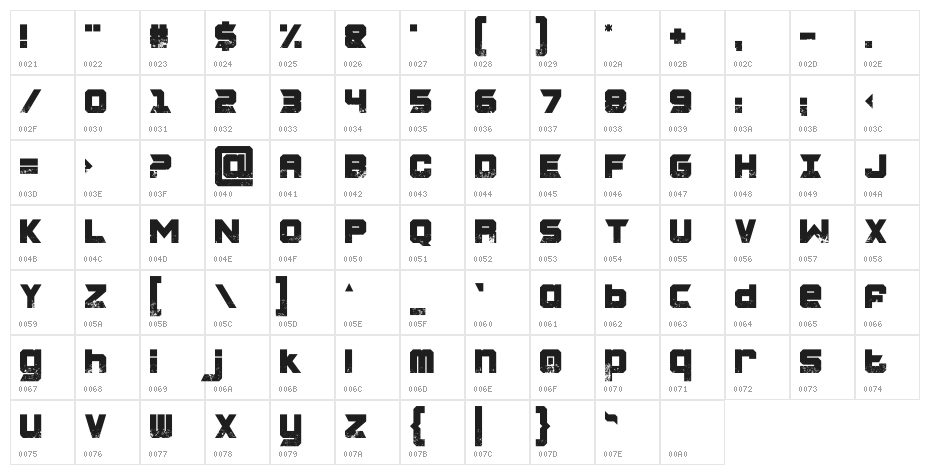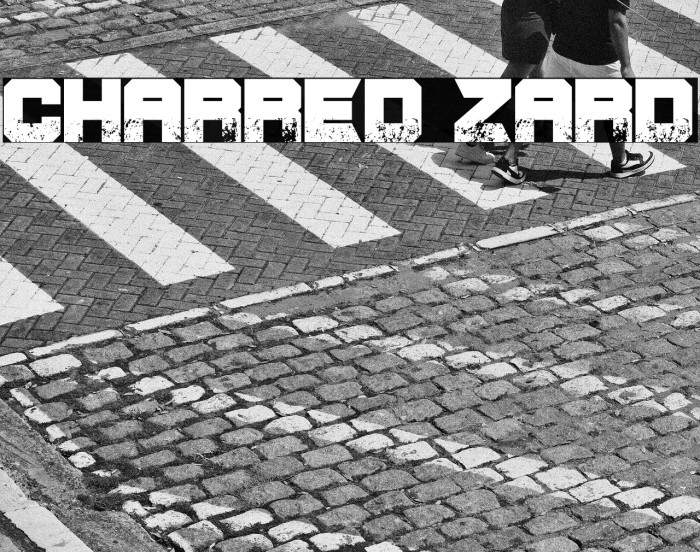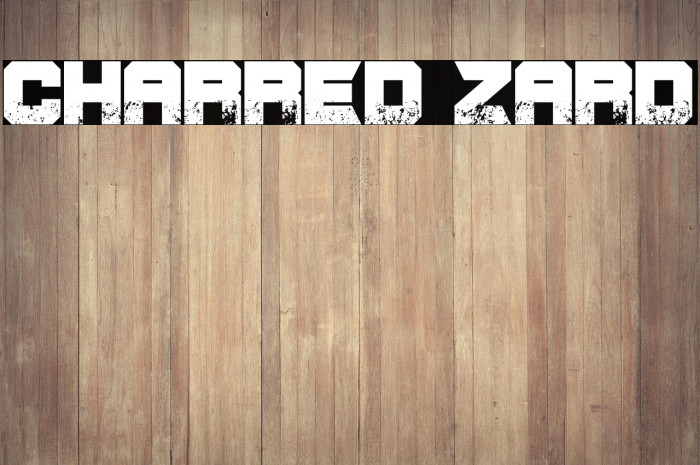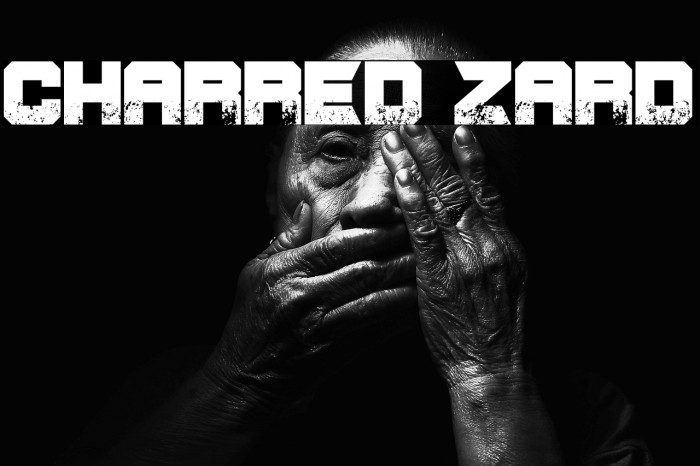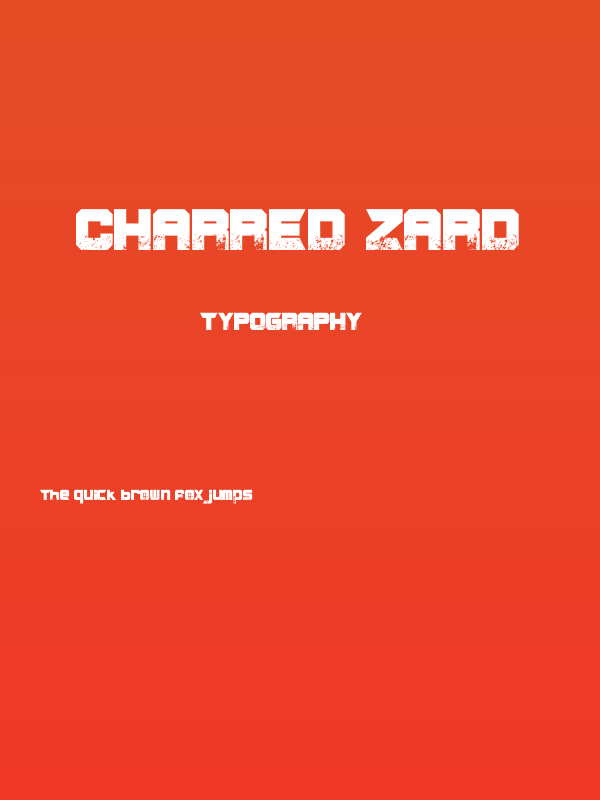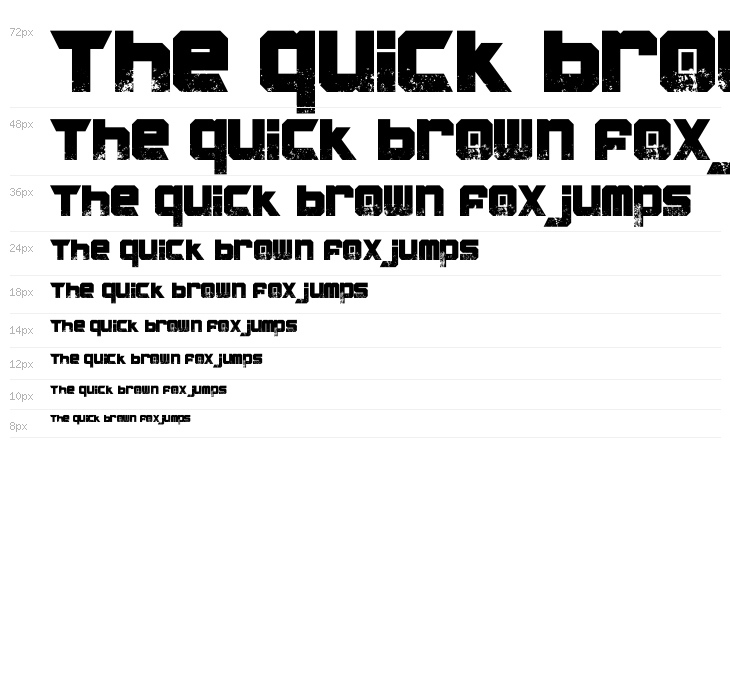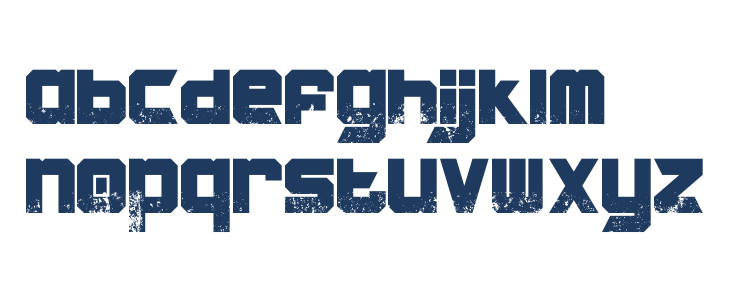
CHARRED ZARD Font
CHARRED ZARD Description
This font features a bold, distressed style with a rugged, textured appearance that gives it a charred or burnt look. The characters are blocky and geometric, with sharp angles and a strong presence. The distressed effect varies across the characters, adding a unique, weathered feel to each letter and number. This font is ideal for projects that require a gritty, industrial, or vintage aesthetic, making it perfect for posters, album covers, and branding that seeks to convey strength and resilience.
| Proposed Projects | Ideal for posters, album covers, branding, and any project needing a gritty, industrial look. |